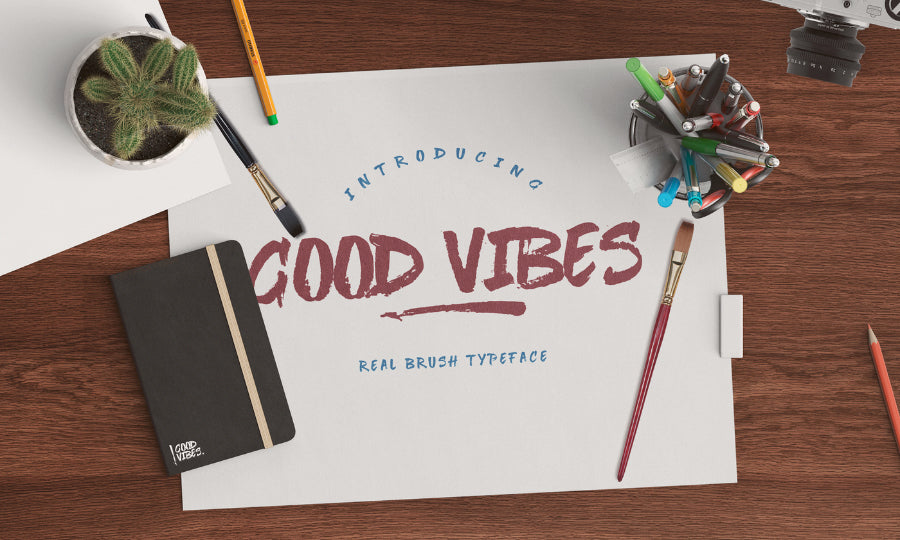
We're glad to feature this inspiring free good vibes brush typeface. Free Design Resources has created this amazing and beautiful free font. You can create a professional designs with this cool font.